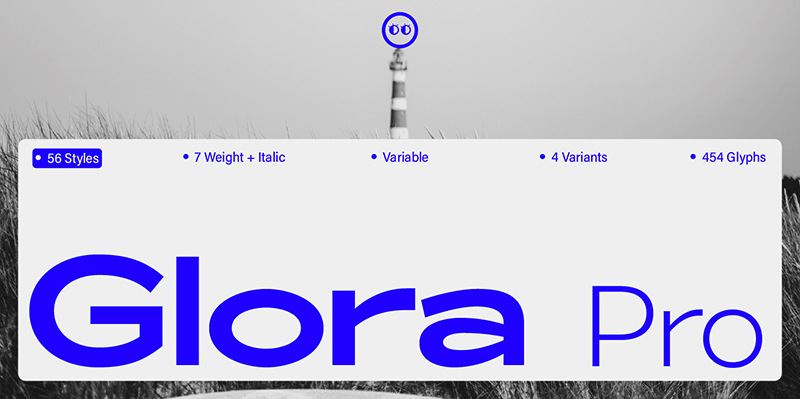
Glora Pro is the next chapter in the Glora story, meticulously crafted to bring an elevated experience to your design projects. Originally released in 2020, Glora has now been fully reimagined, expanding from 6 to 56 styles with precise improvements in kerning, weight stability, and overall refinement. Key Features: - 56 Styles: Offering a wide array of design possibilities. - 4 Variant Varieties: Normal, Semi Expanded, Extra Expanded. - 7 Weights & Italic: Spanning from Light to Bold, providing flexibility in design. - Multi-Language Support: Perfect for global projects with extensive language coverage. Note of the author To download the full font family please visit our website: https://zelowtype.com/zt-glora-pro/ Donation are very appreciated. Paypal account for donation : https://paypal.me/khaiuns CONTACT US: have a question?: selowtype@gmail.com |